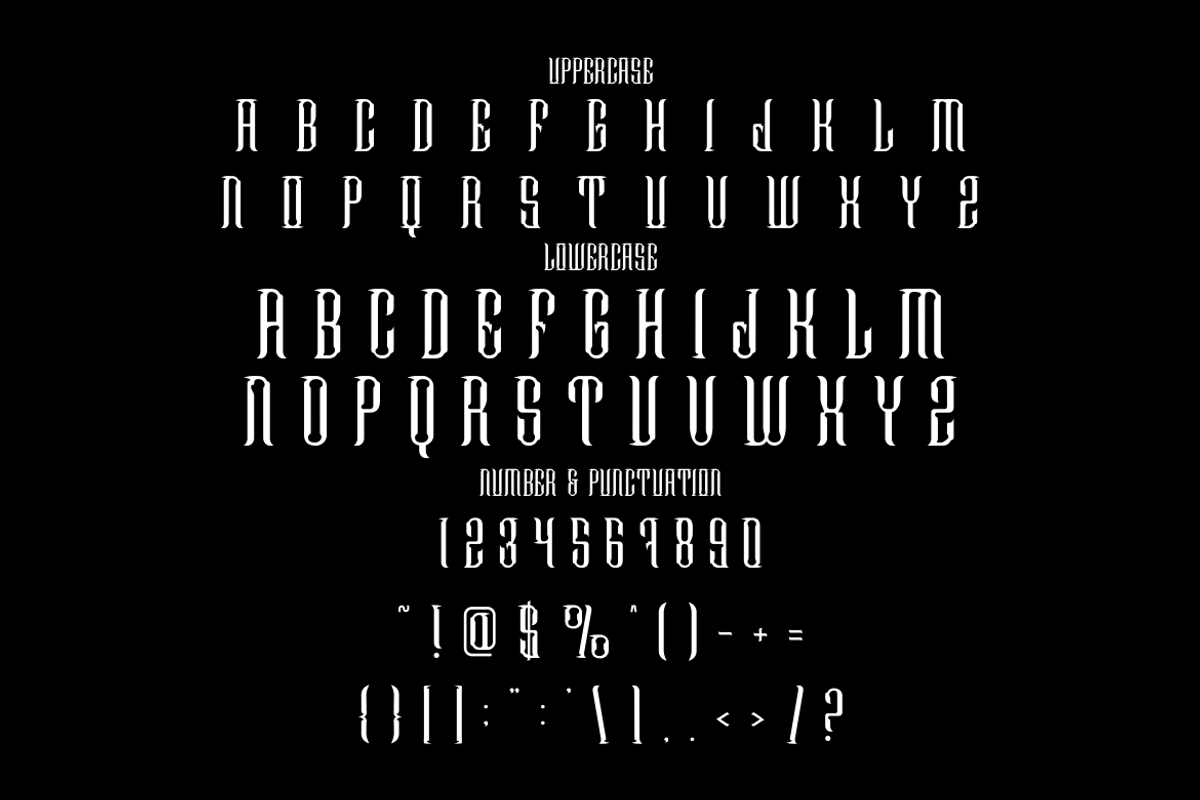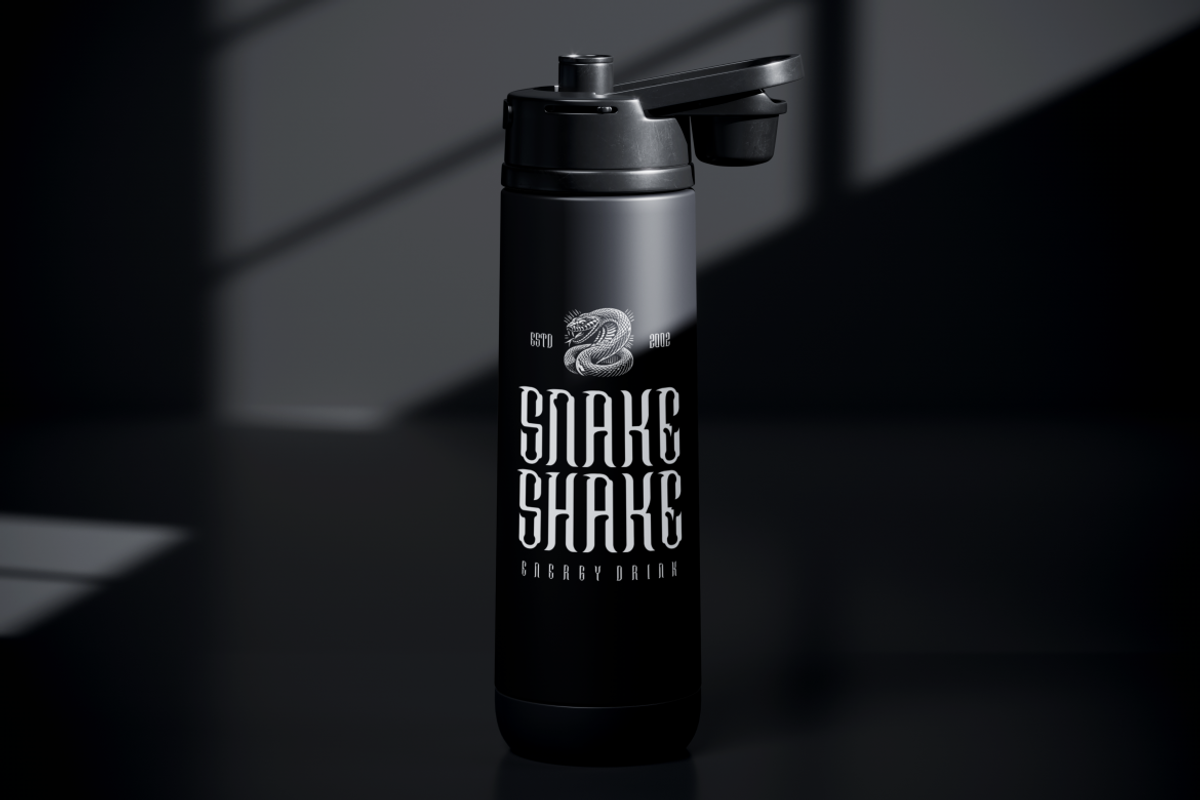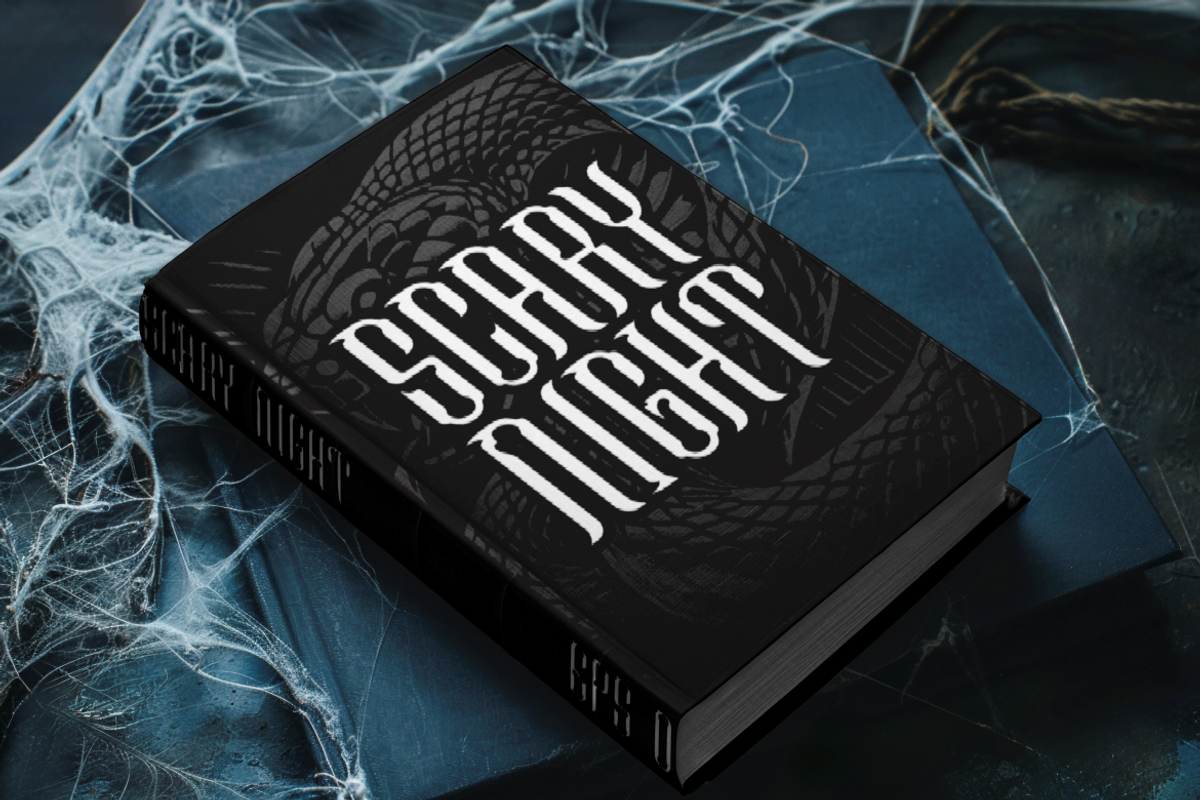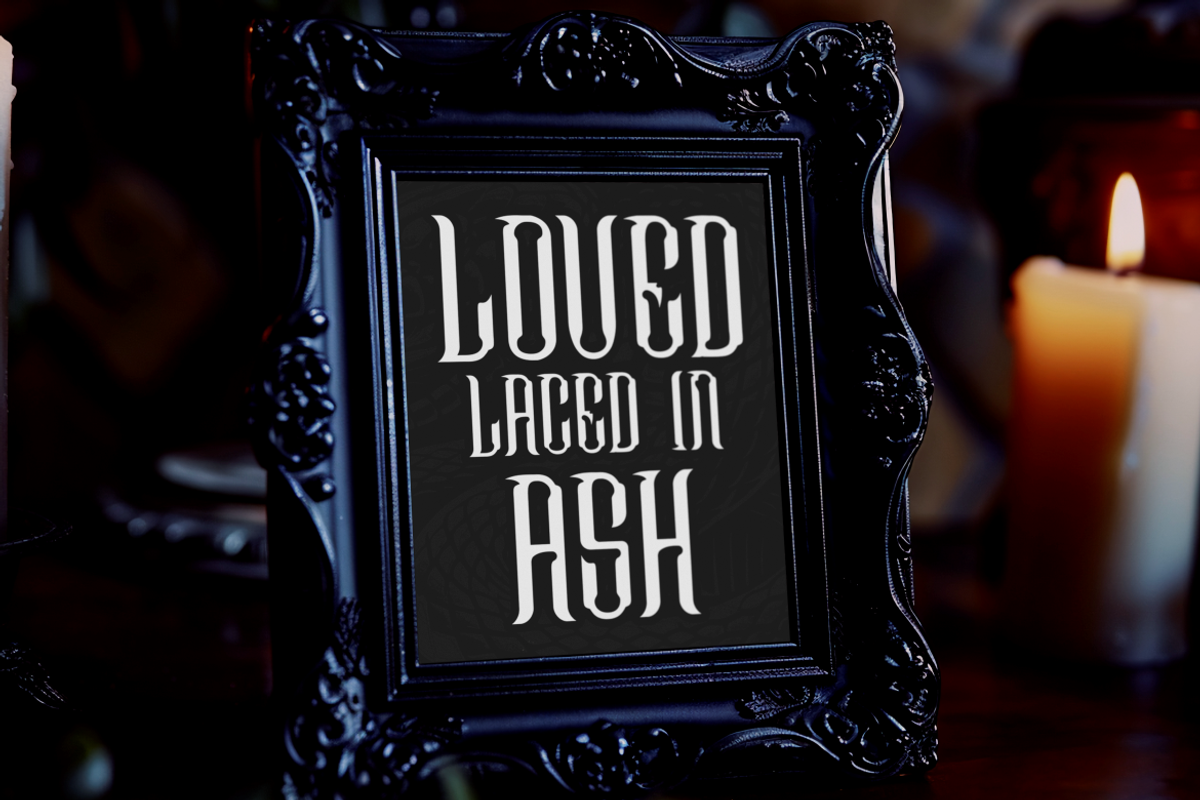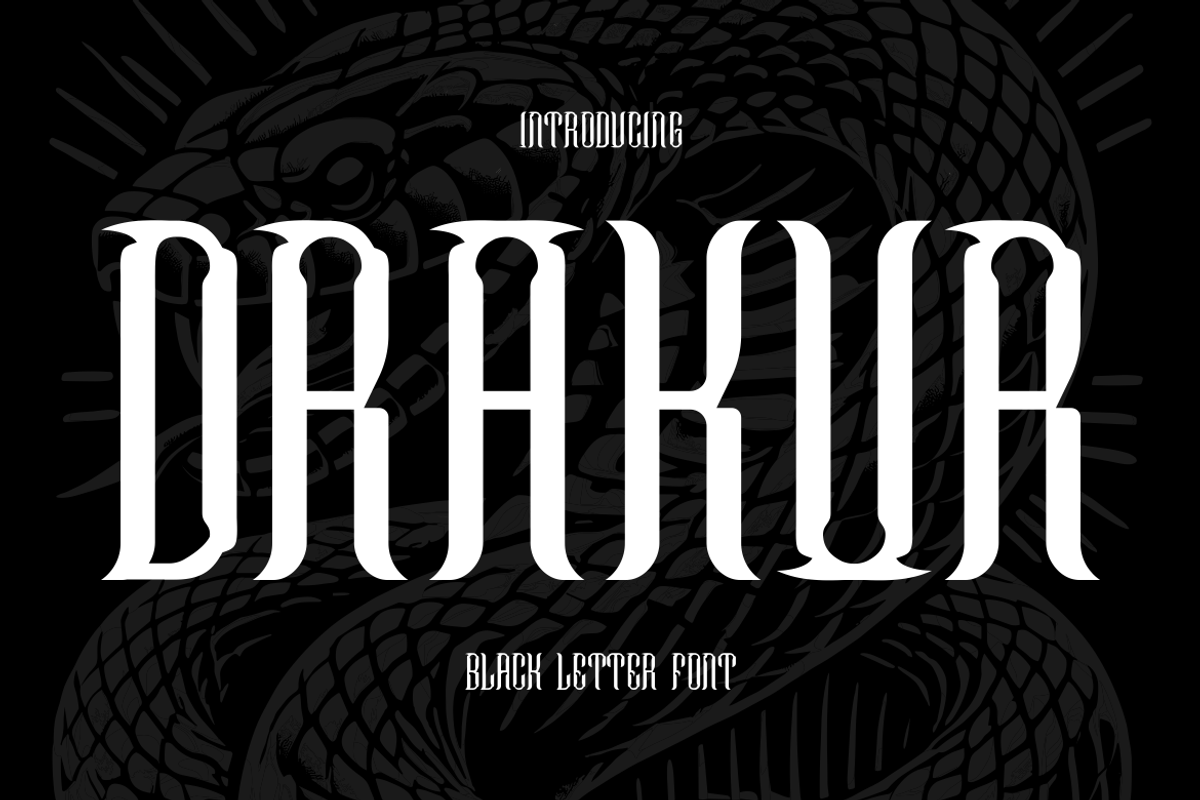
Drakur Black Letter Font
Drakur Black Letter Font is a bold reinterpretation of gothic elegance infused with a modern black metal spirit. With its tall, narrow proportions and sharp vertical weight, each character is designed to dominate space and evoke mystery. The intricate line contrast and subtle vintage curves give this font a high impact aesthetic, making it an excellent choice for titles, posters, logos, and edgy brand identities. Its typographic DNA lies in historic blackletter traditions, but with an unmistakable modern twist that appeals to tattoo artists, metal bands, and contemporary fashion labels alike.
From beverage branding and merchandise to horror film titles and ceremonial invitations, Drakur adapts seamlessly to any creative output requiring a strong, expressive voice. The layout structure emphasizes verticality, ideal for stacking words in compact, dramatic compositions. Uppercase and lowercase variants are harmonized in form, with additional punctuations and numerals completing a full visual system. Whether it's in monochrome palettes or vibrant color schemes, Drakur ensures your message is delivered with authority and aesthetic precision.